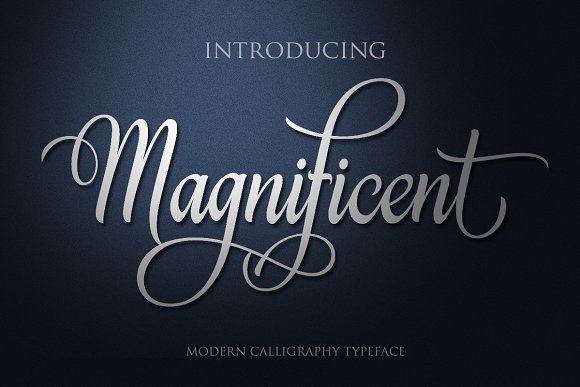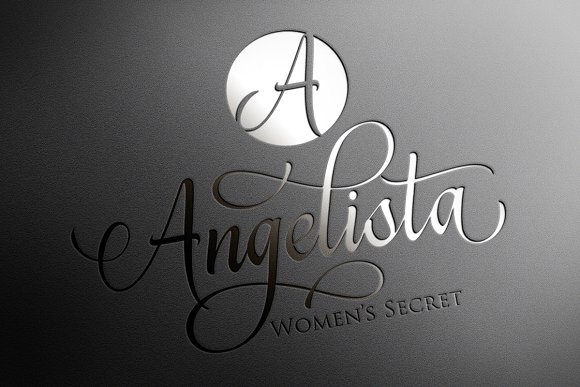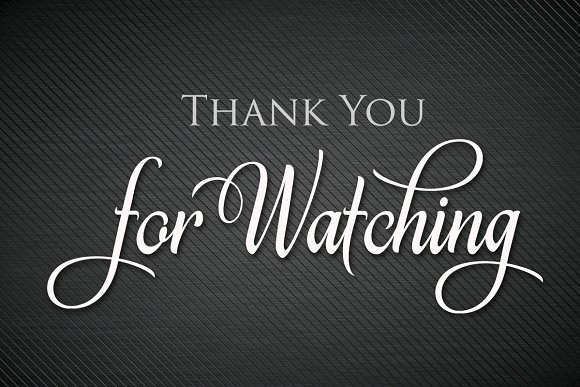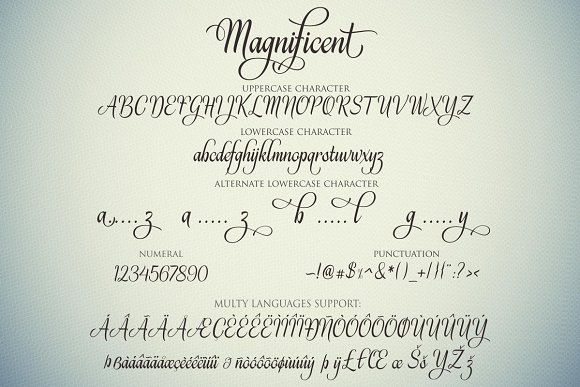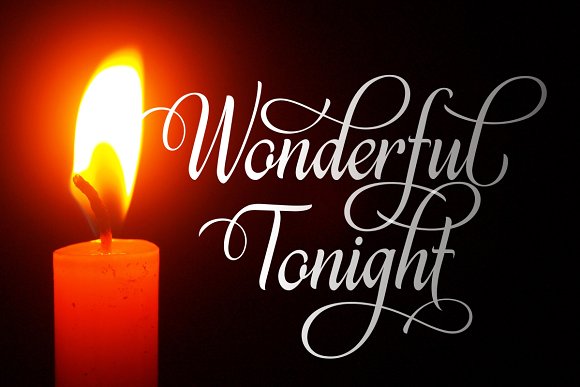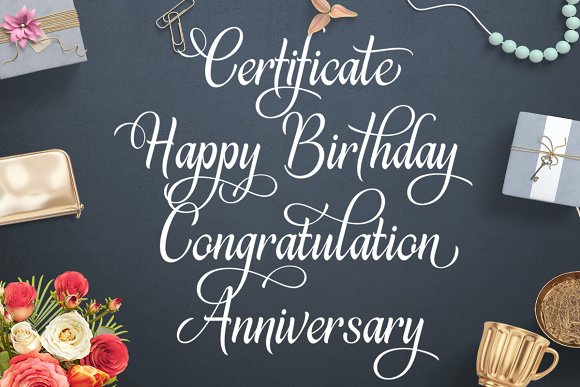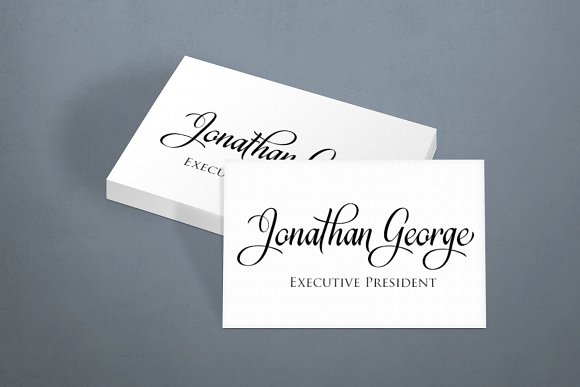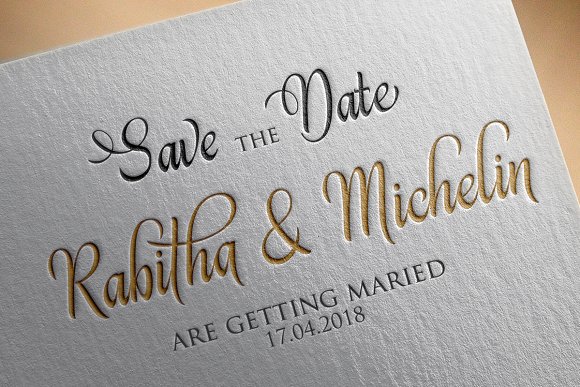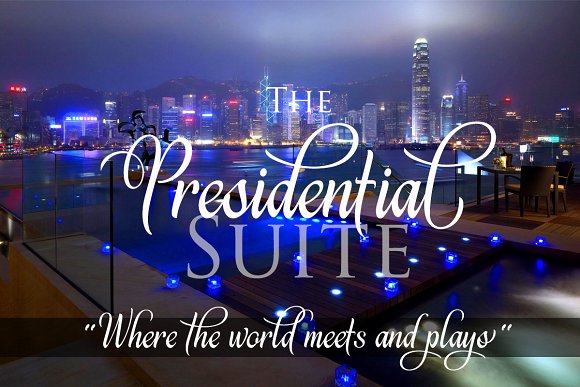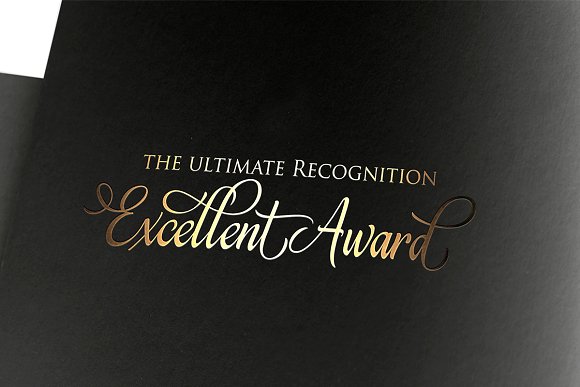
HomeScript FontsMagnificent Font Script Fonts Magnificent Font FacebookXPinterestWhatsApp Magnificent Font Poster 2 Magnificent Font Poster 3 Magnificent Font Poster 4 Magnificent Font Poster 5 Magnificent Font Poster 6 Magnificent Font Poster 7 Magnificent Font Poster 8 Magnificent Font Poster 9 Magnificent Font Poster 10 About Magnificent Font Magnificent is a handwritten font with beautiful swashes. It features fluid characters. DOWNLOAD NOW People also explored Abcd Cursive Lined2 Font Athaya Font Hautte Font Burgie Christmas Vintage Font Origin Font Wellyfitts Font Sobbers Typeface Font Sakeso Font 330 0 TagsMagnificent Font Previous articleMainstream FontNext articleKayleight Font LEAVE A REPLY Cancel reply Comment: Please enter your comment! Name:* Please enter your name here Email:* You have entered an incorrect email address! Please enter your email address here Website: Save my name, email, and website in this browser for the next time I comment. Personal Use Free Sehat Selalu Personal Use Free Read more about this font Dr.Marz Personal Use Free Read more about this font 1980 Portable Personal Use Free Read more about this font Evelyne Personal Use Free Read more about this font BLOG Where to Buy American Fonts Online in 2024 Where to Buy American Fonts Online: The Ultimate Guide for 2024 Looking for the perfect American font to elevate your design projects? You're in the... 5 Fonts That Will Dominate Design Trends in 2026 How to Install and Use Fonts on Windows, macOS, and Web Projects Top 7 Google Fonts Alternatives for Faster and Privacy-Friendly Web Design (2025)